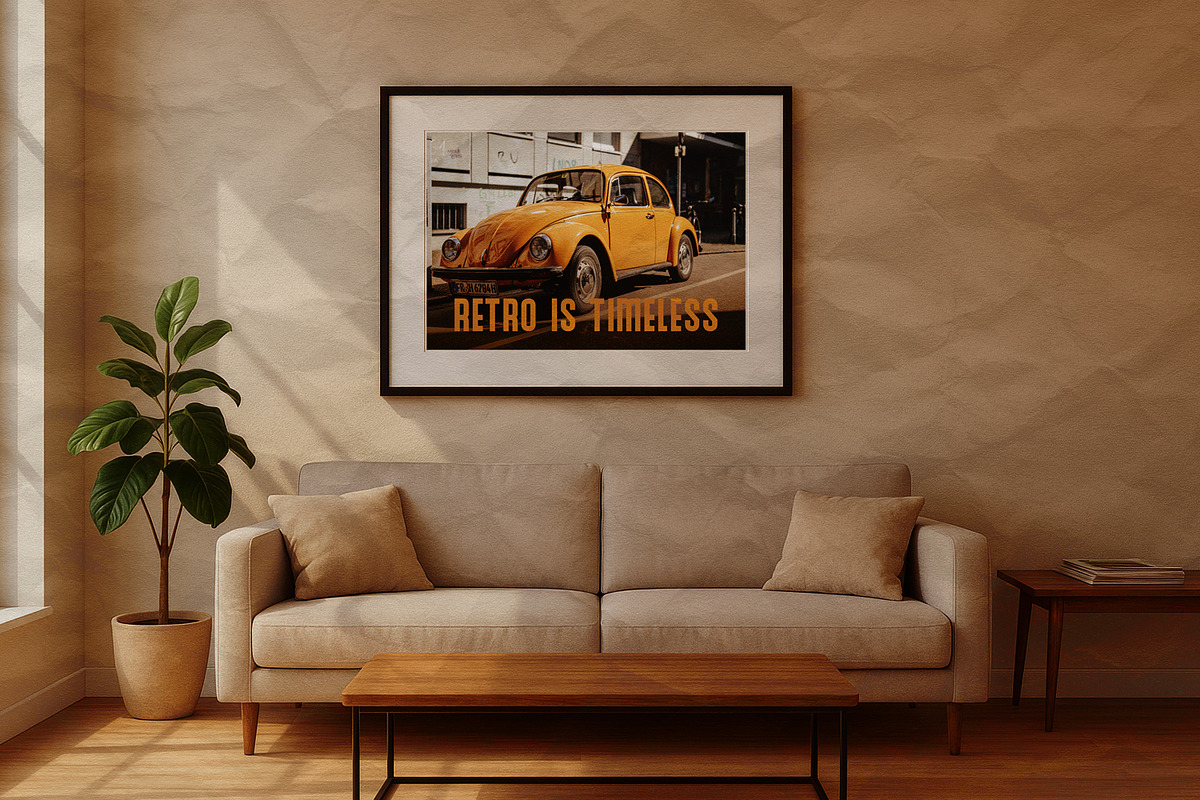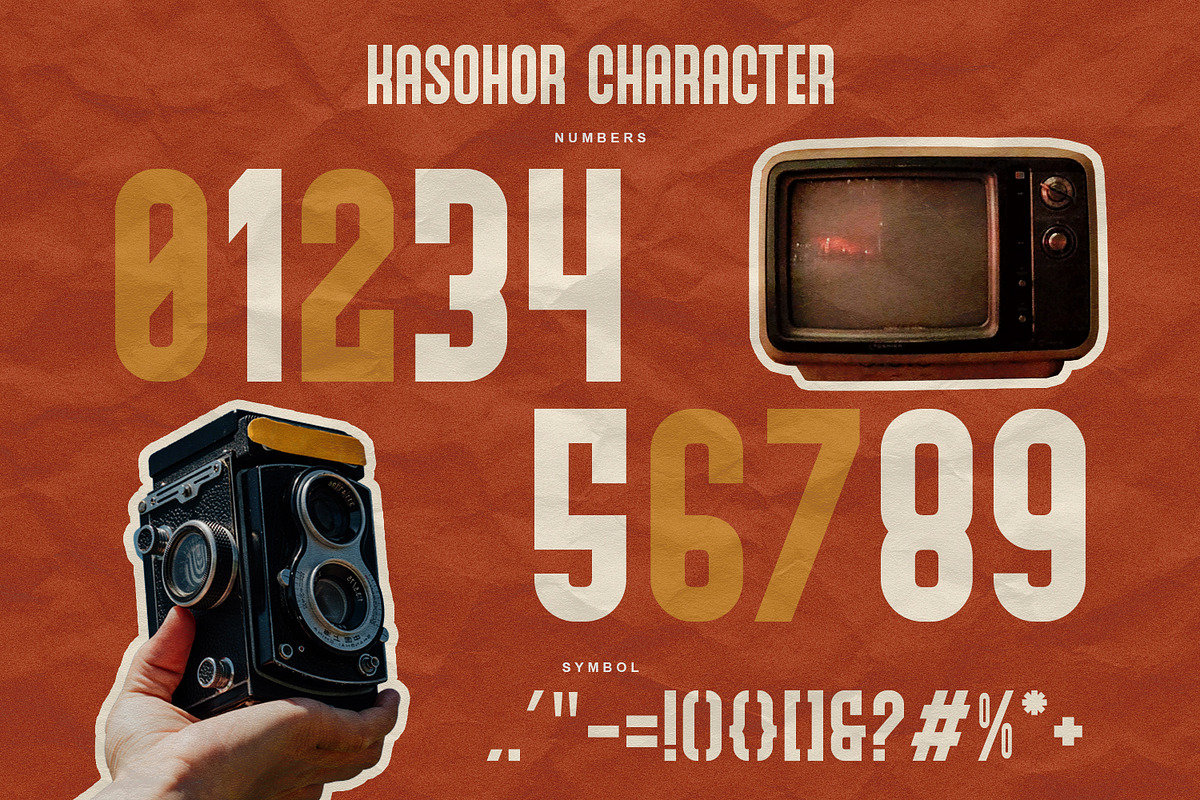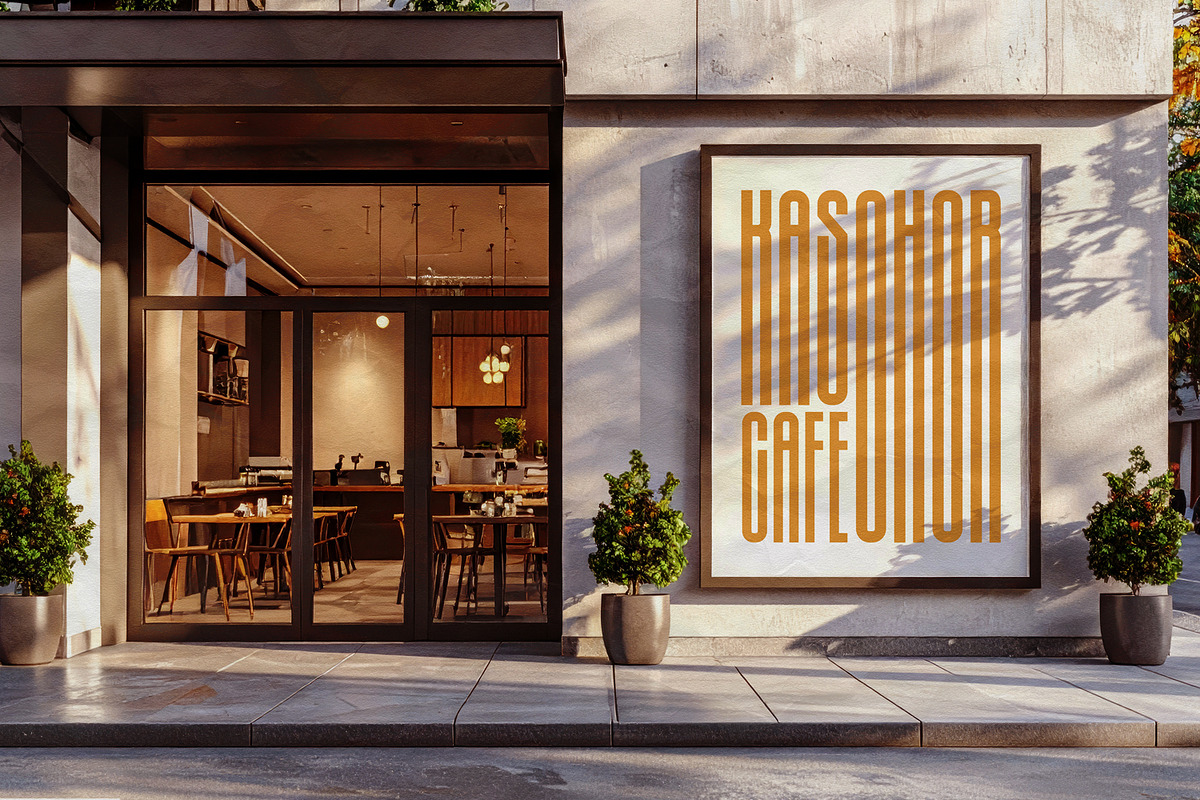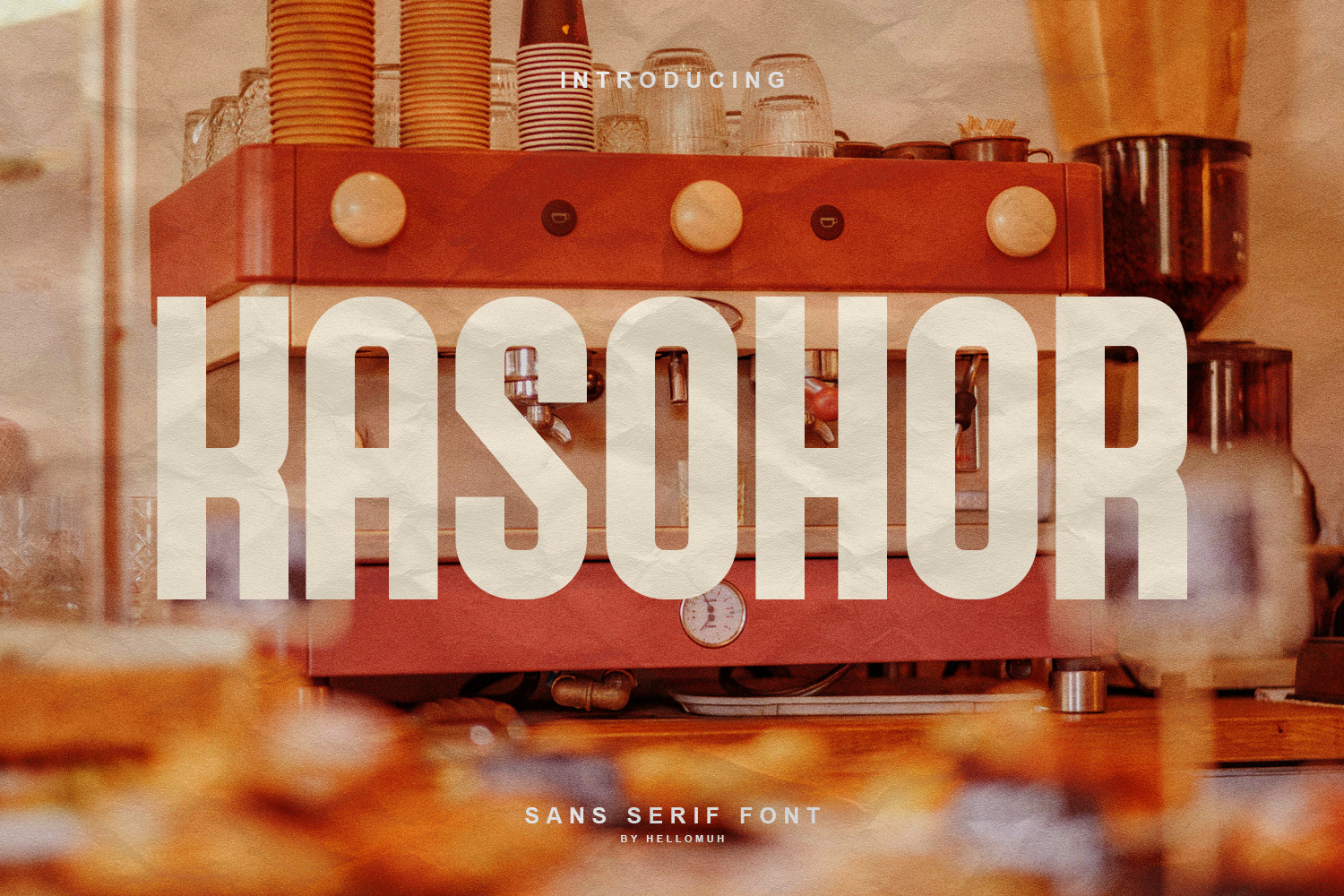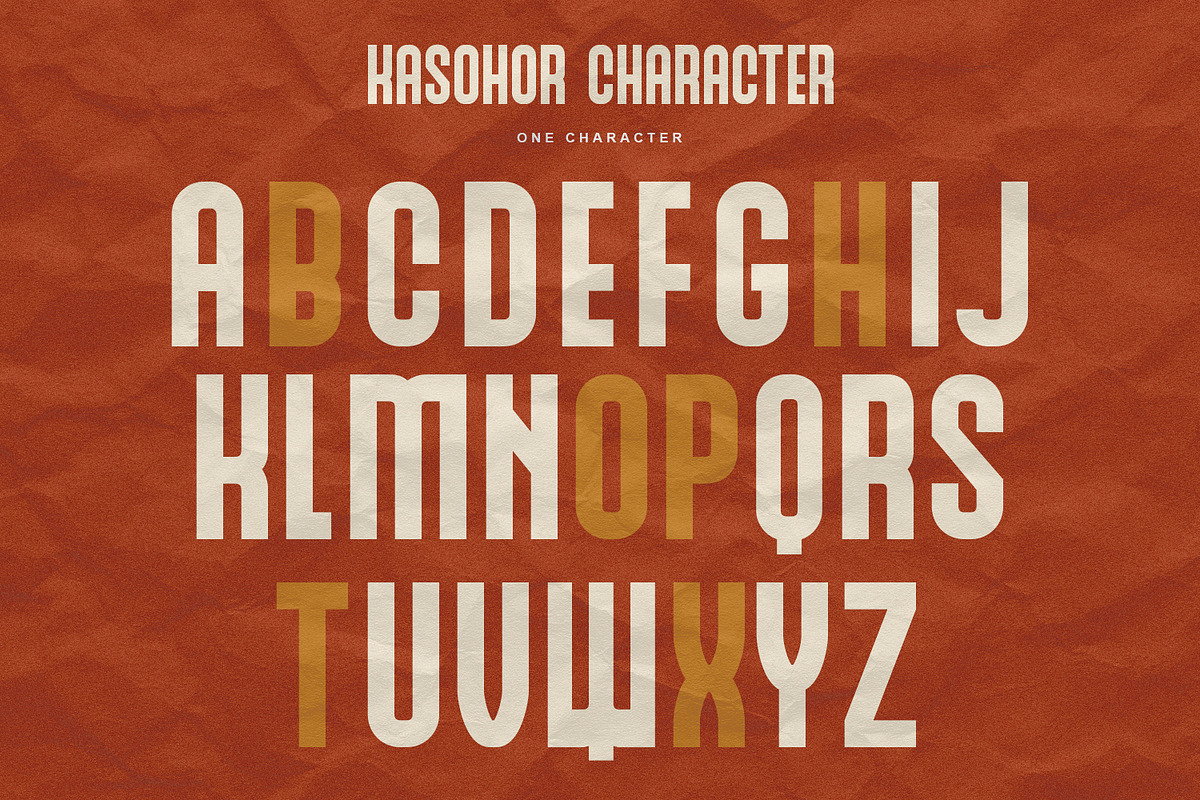
Kasohor - Sans Serif Display Font
Kasohor is a bold sans serif font with a strong, tall, and confident appearance. Its clean lines and solid shapes make it stand out instantly, perfect for designs that demand attention. With its modern yet timeless style, Kasohor brings both strength and simplicity to any visual project.
This font works best for:
-Posters and promotional materials that need an eye-catching headline.
-Branding that aims to look bold, modern, and minimalistic.
-Editorial design where striking typography is essential.
-Retro-modern concepts, blending classic typography vibes with a fresh contemporary touch.
Kasohor delivers a sense of authority and style, making it a versatile choice for cafes, creative events, fashion branding, or product packaging that seeks to stand out.